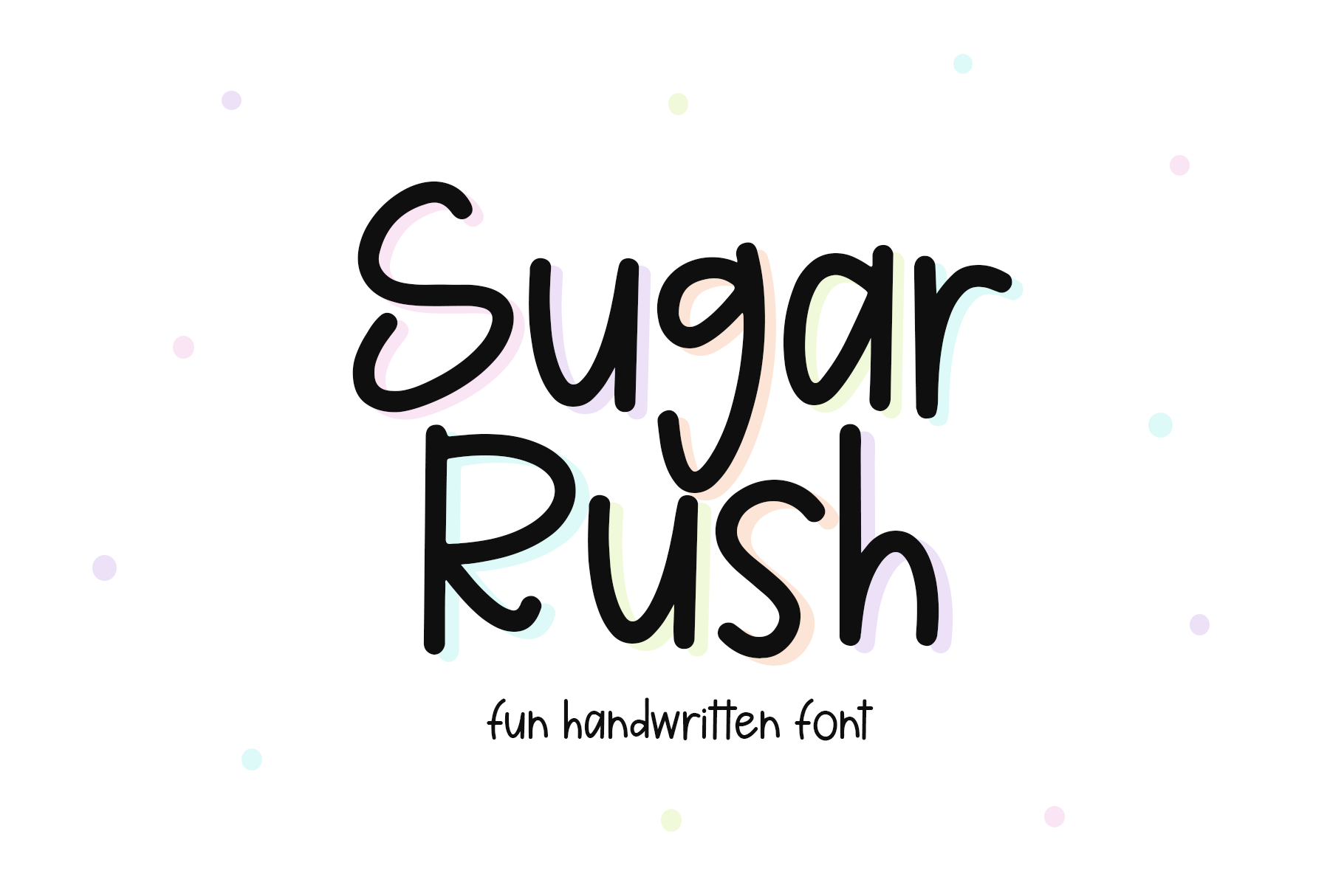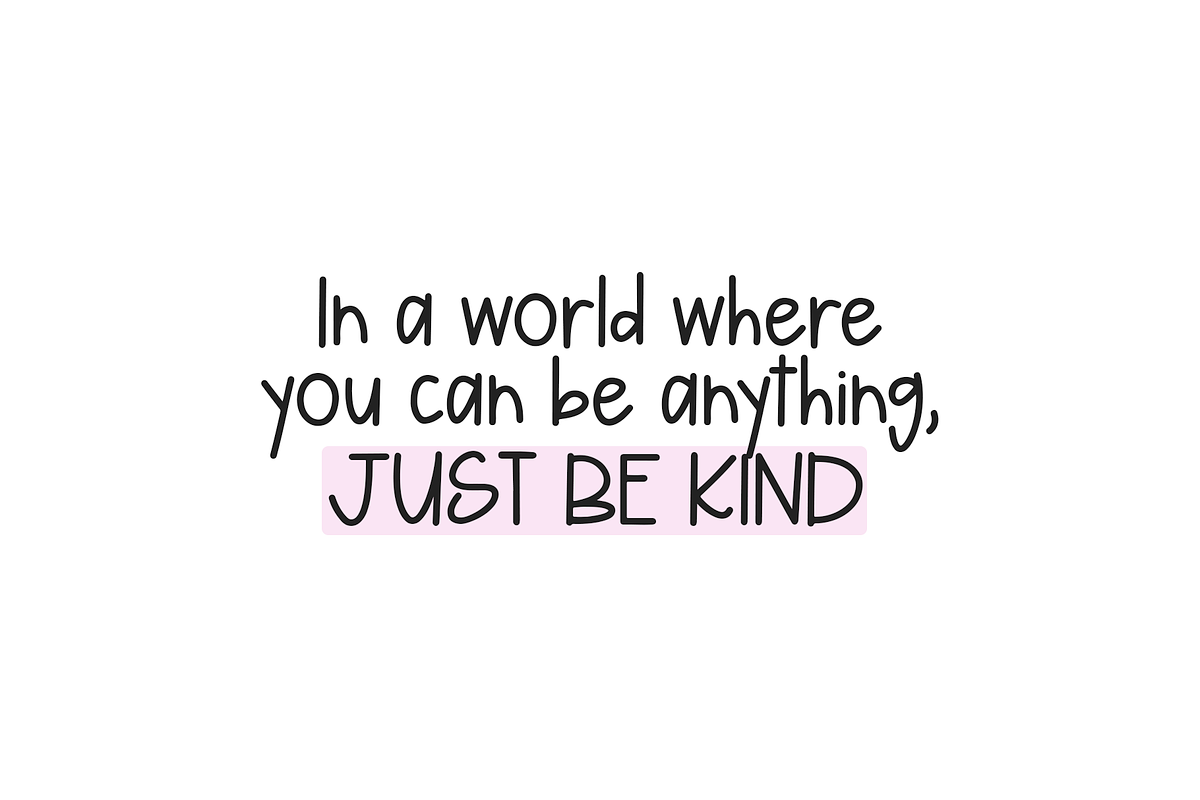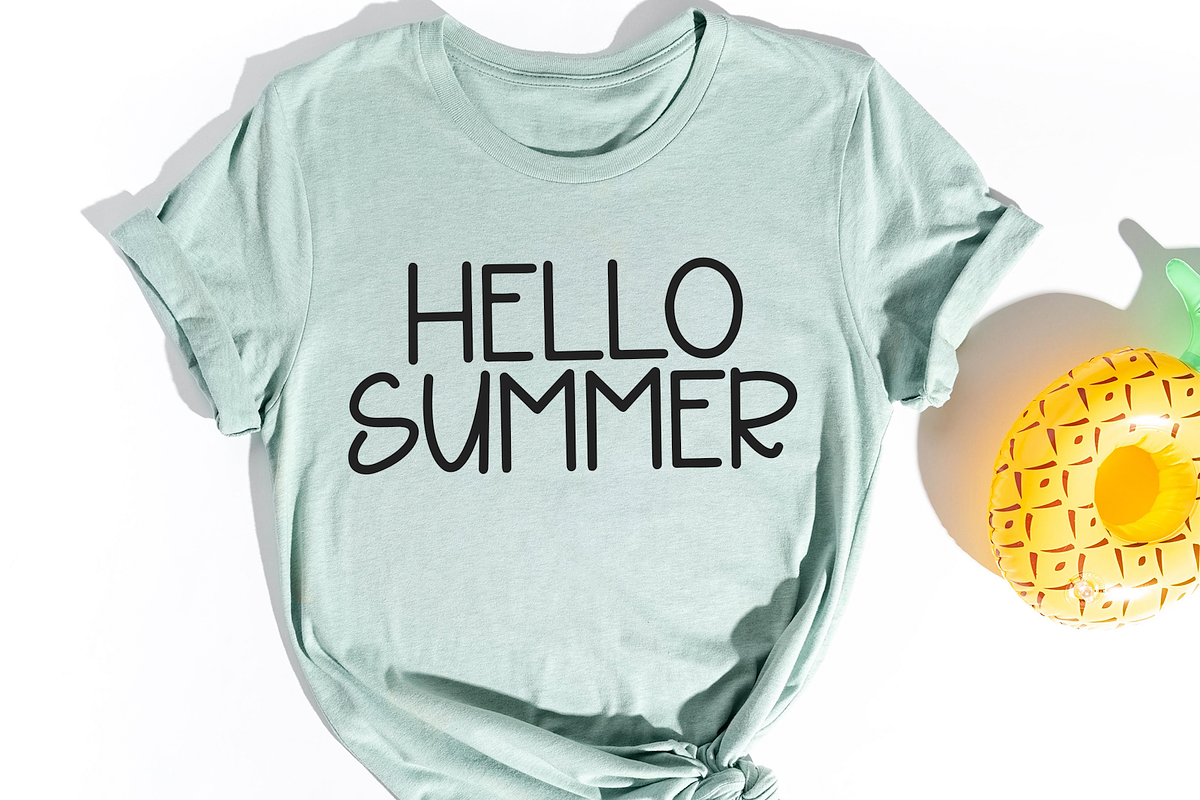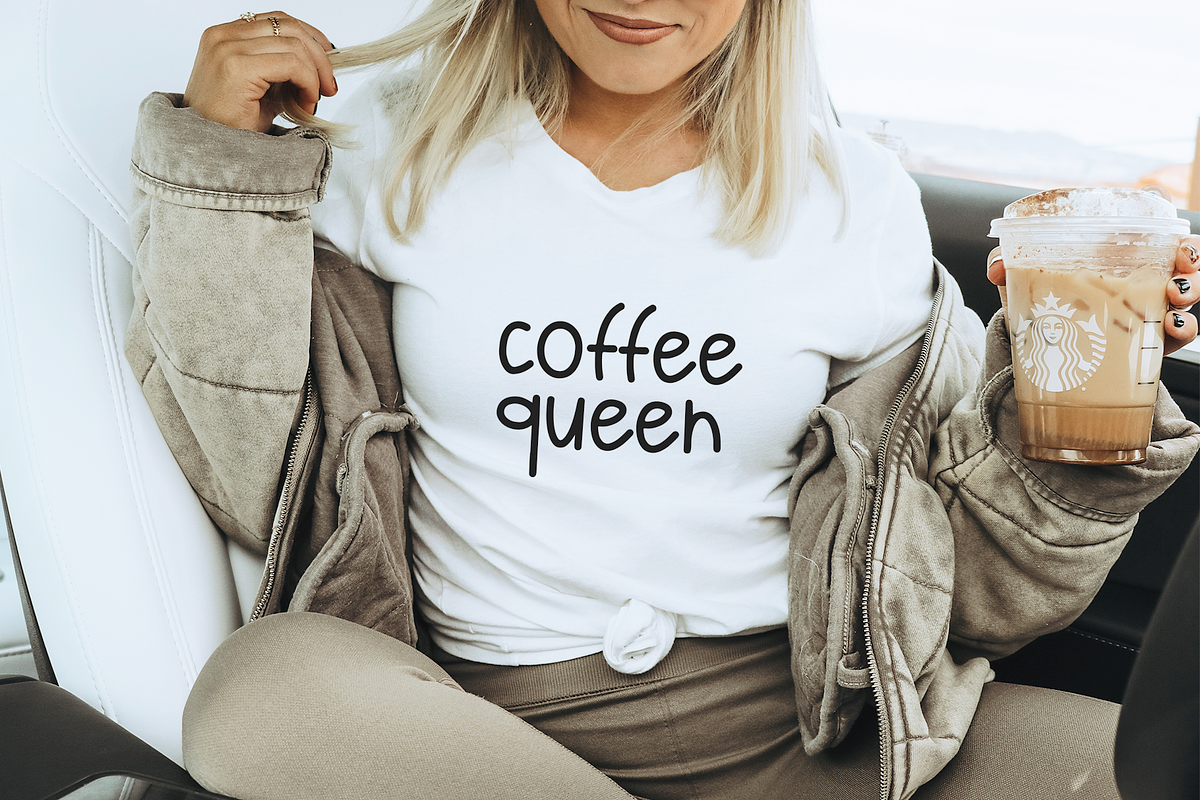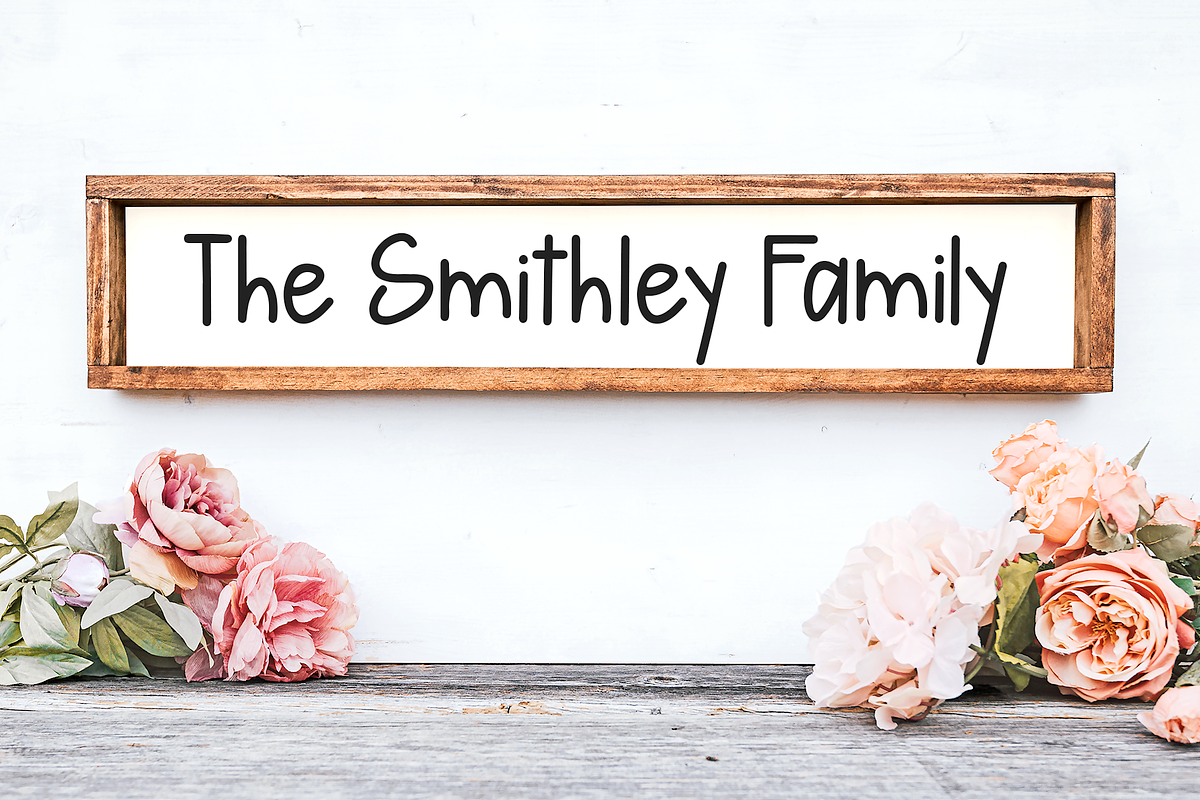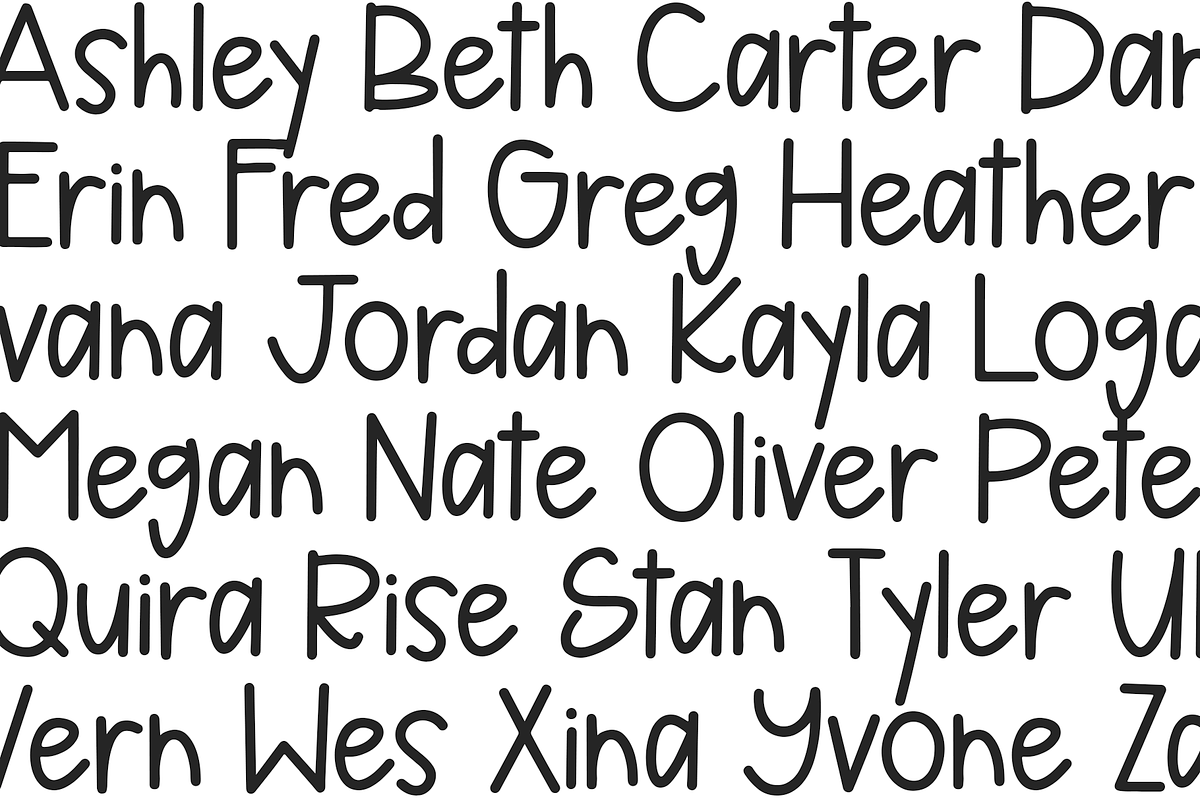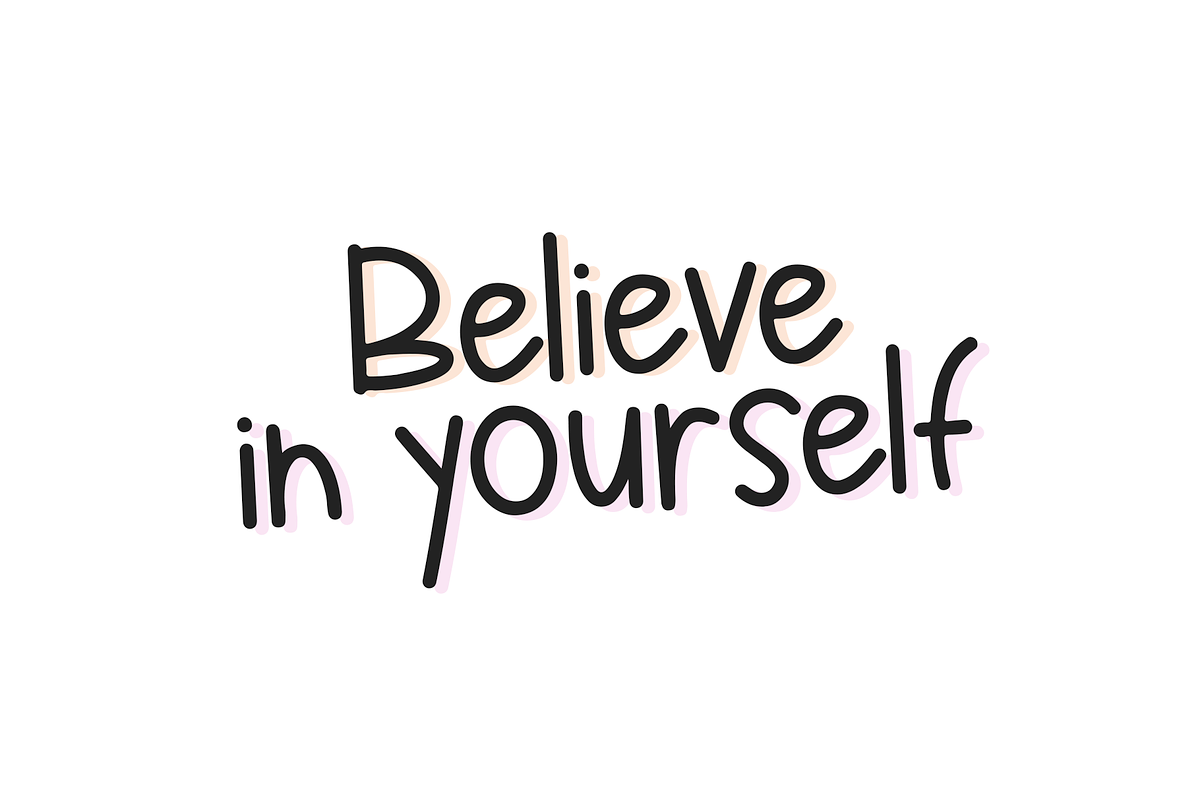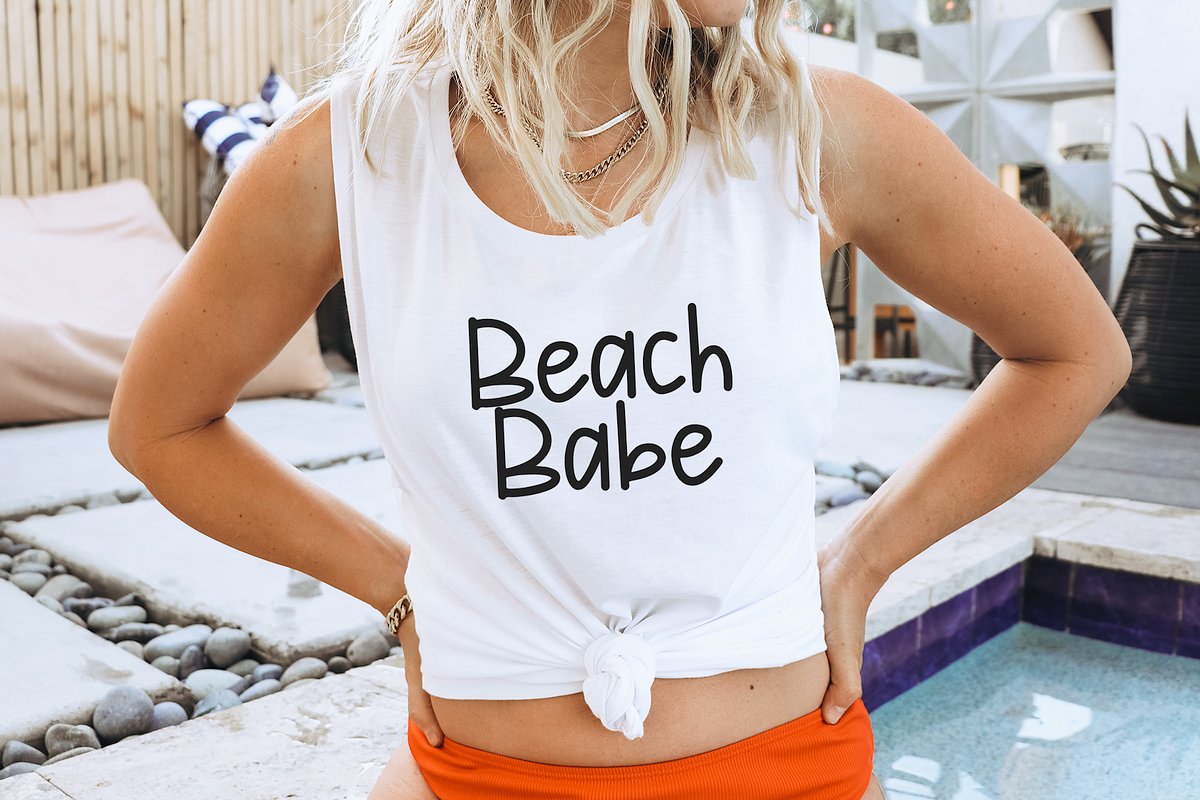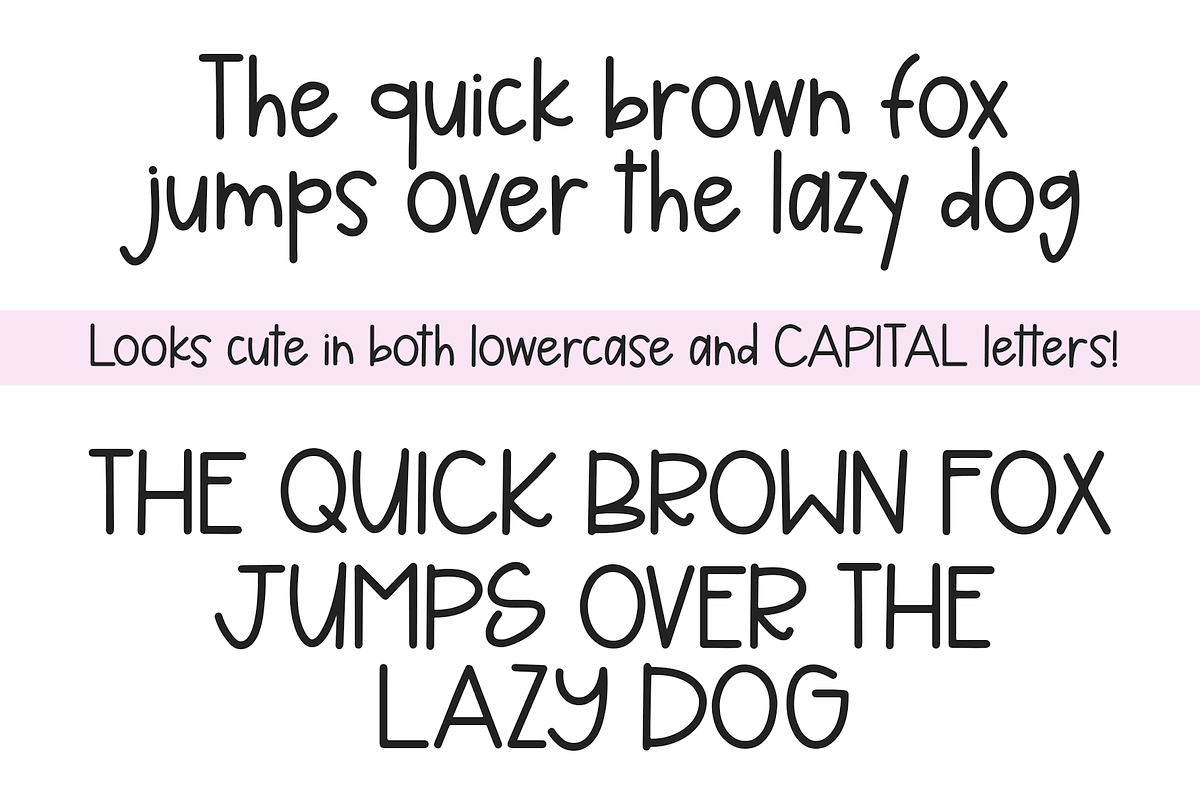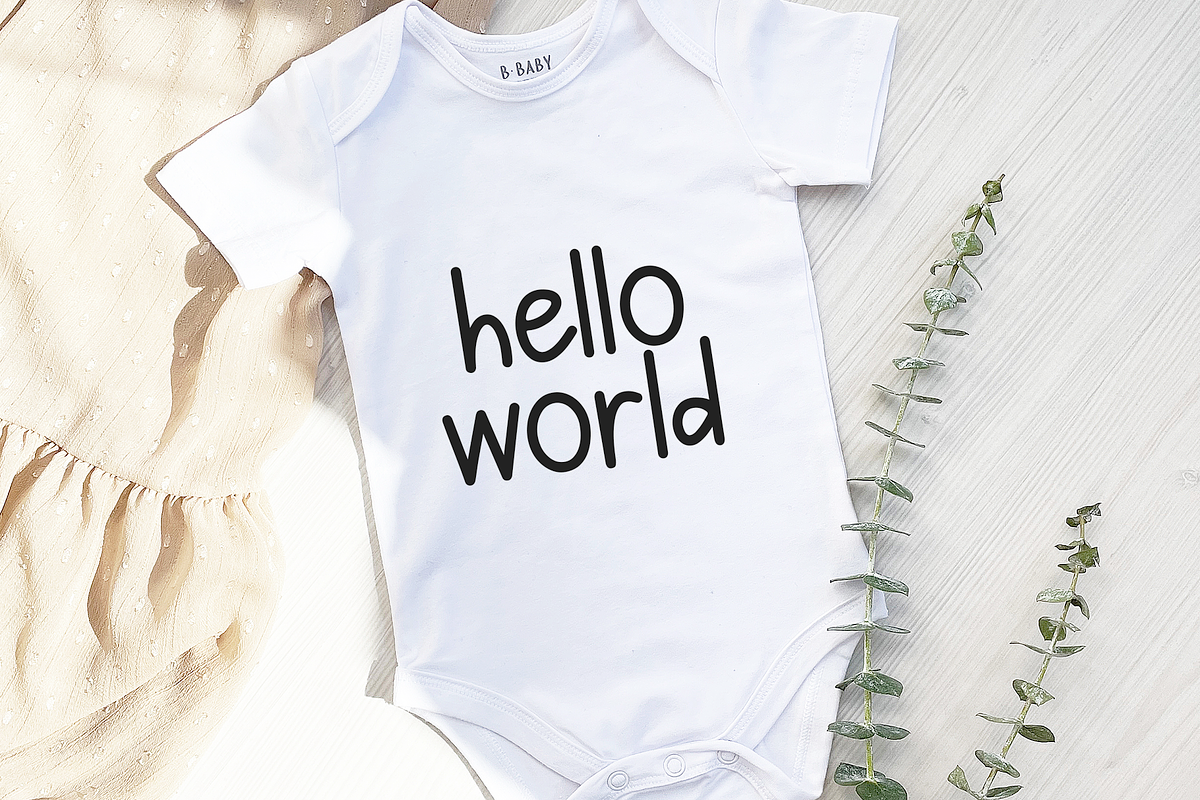
Sugar Rush | Fun Handwritten Font
Sugar Rush is fun handwritten font!
This font is perfect for cricut projects, procreate designs, shirts, svg designs, home decor, branding, logos, invitations and more!